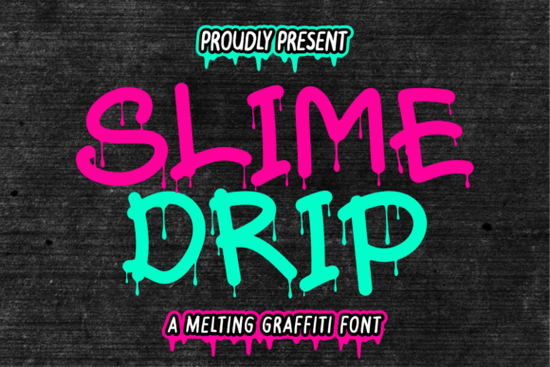
If you're looking for a font that brings streetwise energy to your designs without sacrificing clarity, the Slime Drip font is worth a closer look. Designed with fluid, melting strokes that echo fresh graffiti on urban walls, it blends bold monoline structure with playful spontaneity ideal for creators who want their work to feel alive and current.
What makes Slime Drip different from other display fonts?
Unlike many decorative fonts that prioritize style over function, Slime Drip maintains strong readability thanks to its consistent stroke width and clear letterforms. The “drip” effect isn’t overwhelming it’s subtle enough to add character but not so exaggerated that it becomes hard to read at smaller sizes or in dense layouts. This balance makes it especially useful for:
- Streetwear apparel designs
- Event posters and flyers
- Branded packaging with an edgy vibe
- Social media graphics that need instant visual punch
It also includes numerals, punctuation, and multilingual support, which gives you flexibility whether you’re designing a limited-run T-shirt or a full brand identity for a local skate shop.
Who should use this font?
Print-on-demand sellers will appreciate how well Slime Drip scales across products from mugs and tote bags to vinyl decals without losing its distinctive flair. Small business owners launching youth-focused brands (think juice bars, gaming cafes, or indie music venues) can use it to signal energy and authenticity. Crafters making custom stickers or greeting cards might find it perfect for adding a rebellious-but-fun touch to invitations or party decor.
How does it compare to similar urban-inspired fonts?
If you’ve browsed Creative Fabrica’s display fonts before, you may have seen options like City Spray, which leans into raw spray-paint textures, or Old Game, which channels retro arcade nostalgia. Slime Drip sits somewhere in between: less gritty than City Spray, but more contemporary than Old Game. It doesn’t mimic pixelation or weathering it’s about motion and flow.
For projects needing a slightly softer edge, consider Preppy Sweet, which offers rounded charm instead of sharp attitude. Or if you're building a sports-themed brand, the structured geometry of Classic Varsity might serve you better. But when your concept calls for something that feels freshly tagged and full of life, Slime Drip delivers.
Tips for using Slime Drip effectively
Because of its expressive nature, Slime Drip works best as a headline or accent font not body text. Keep these pointers in mind:
- Use generous spacing: Let each letter breathe so the drips don’t visually collide.
- Limit color complexity: Stick to 1–2 bold colors to maintain impact; neon green or electric blue often complements its vibe.
- Avoid overuse: One or two words in Slime Drip can anchor a whole design no need to set entire paragraphs in it.
- Pair thoughtfully: Combine it with minimalist sans-serifs (like Helvetica Neue or Montserrat) to ground its wilder tendencies.
Remember, the goal isn’t just to grab attention it’s to communicate a mood. Slime Drip excels when your message aligns with creativity, movement, and a bit of rule-breaking spirit.